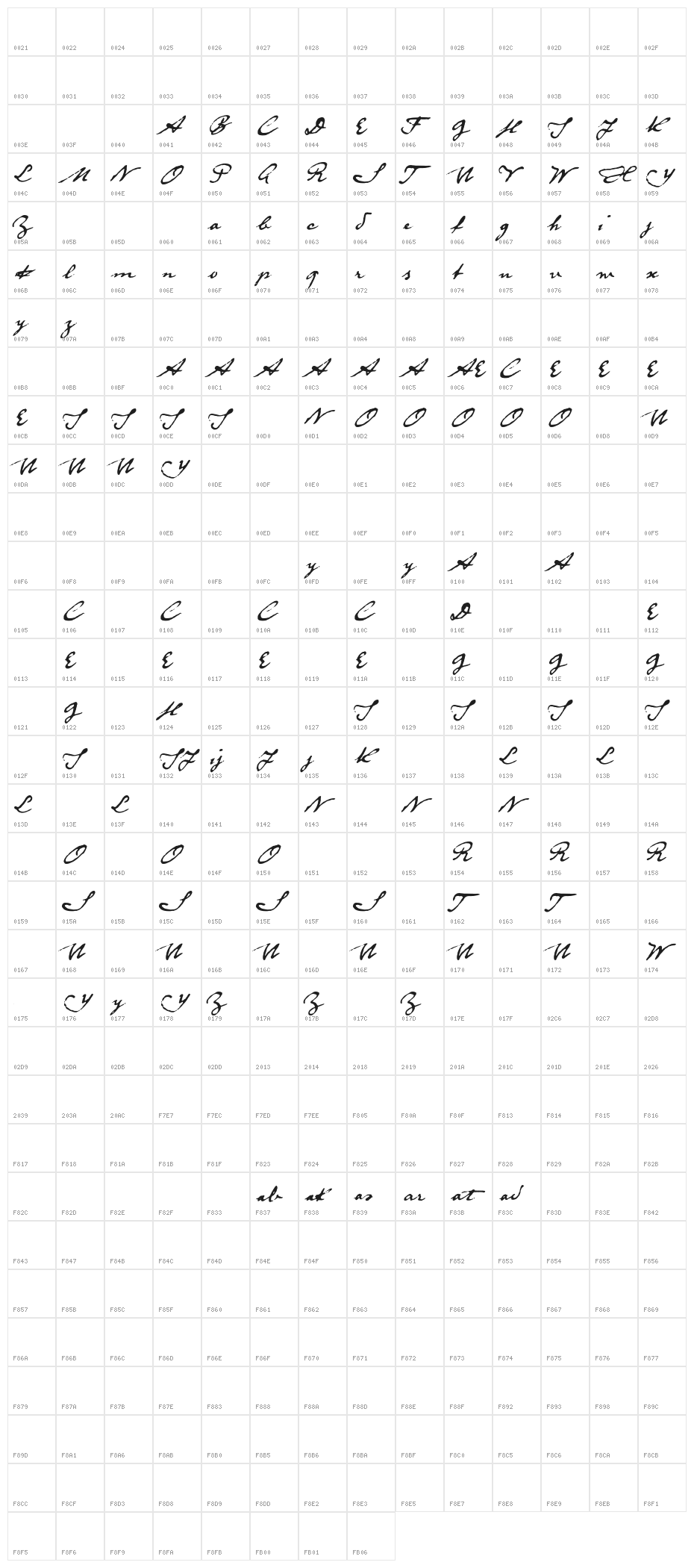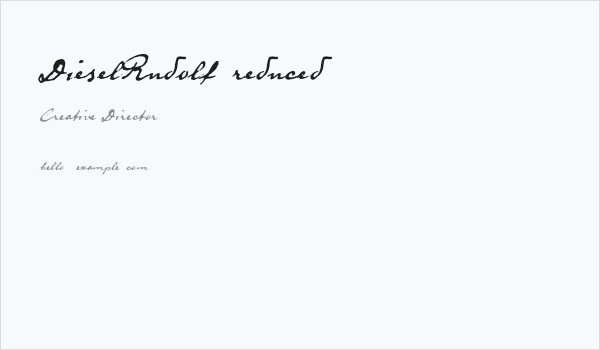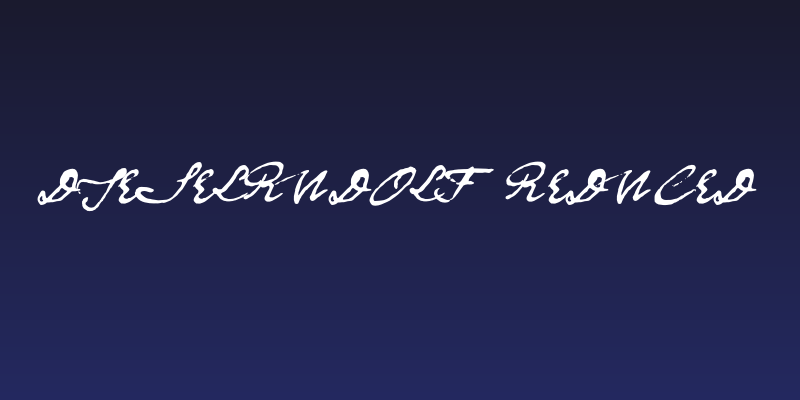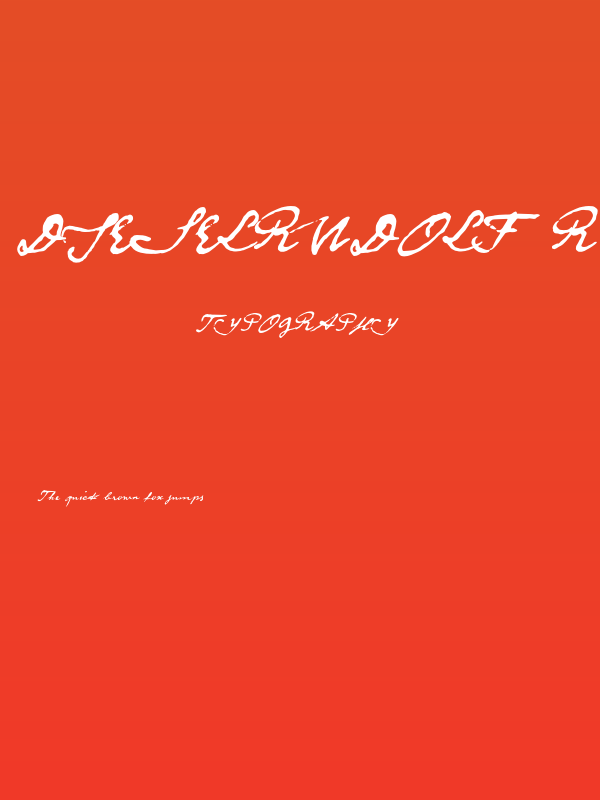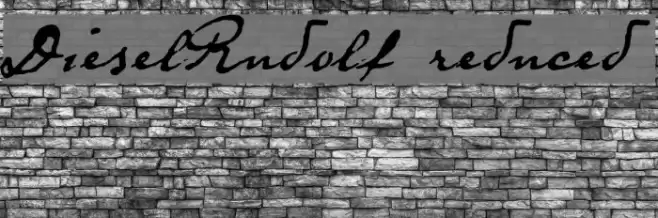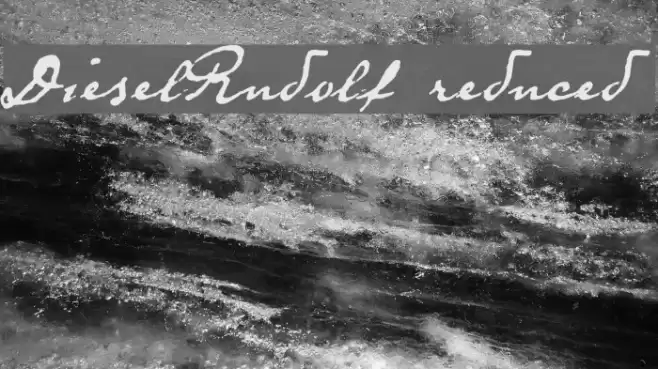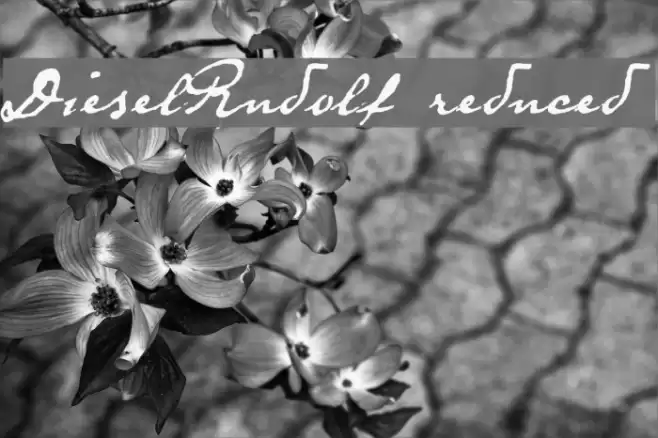
DieselRudolf-reduced Font
DieselRudolf-reduced Description
This font exudes a vintage charm with its flowing, cursive style that mimics the elegance of traditional handwriting. Each character is crafted with a distinct flair, featuring smooth curves and varying stroke widths that add a dynamic quality to the text. The uppercase letters are particularly ornate, with intricate loops and swirls that enhance their decorative appeal. The lowercase letters maintain a consistent fluidity, making them highly legible despite their artistic design. This font's unique character is further emphasized by its slightly irregular baseline, giving it an authentic, hand-drawn feel. The overall impression is one of sophistication and timelessness, suitable for projects that require a touch of classic elegance.
| Overall Style | Vintage |
| Use Case | Logos, Invitations, Decorative text |
| Proposed Projects | Ideal for wedding invitations, greeting cards, branding for luxury products, and any project that requires a classic, sophisticated touch. |